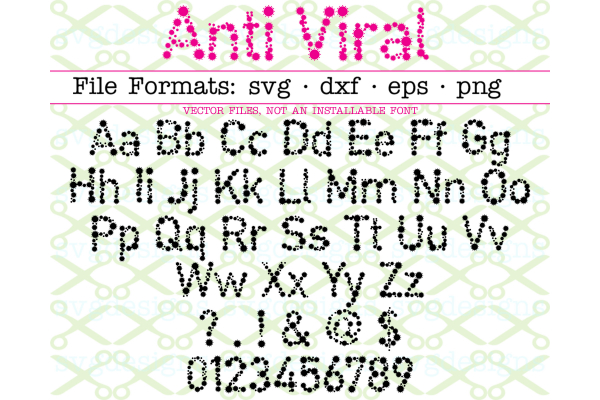
ANTI VIRAL FONT SVG FILES, In File Formats SVG, DXF, EPS & PNG. Letters & numbers & characters as shown in ad picture. Use for any projects you are making to encourage social distancing. Note that due to the detail involved, there may be additional "weeding" needed for cut files.